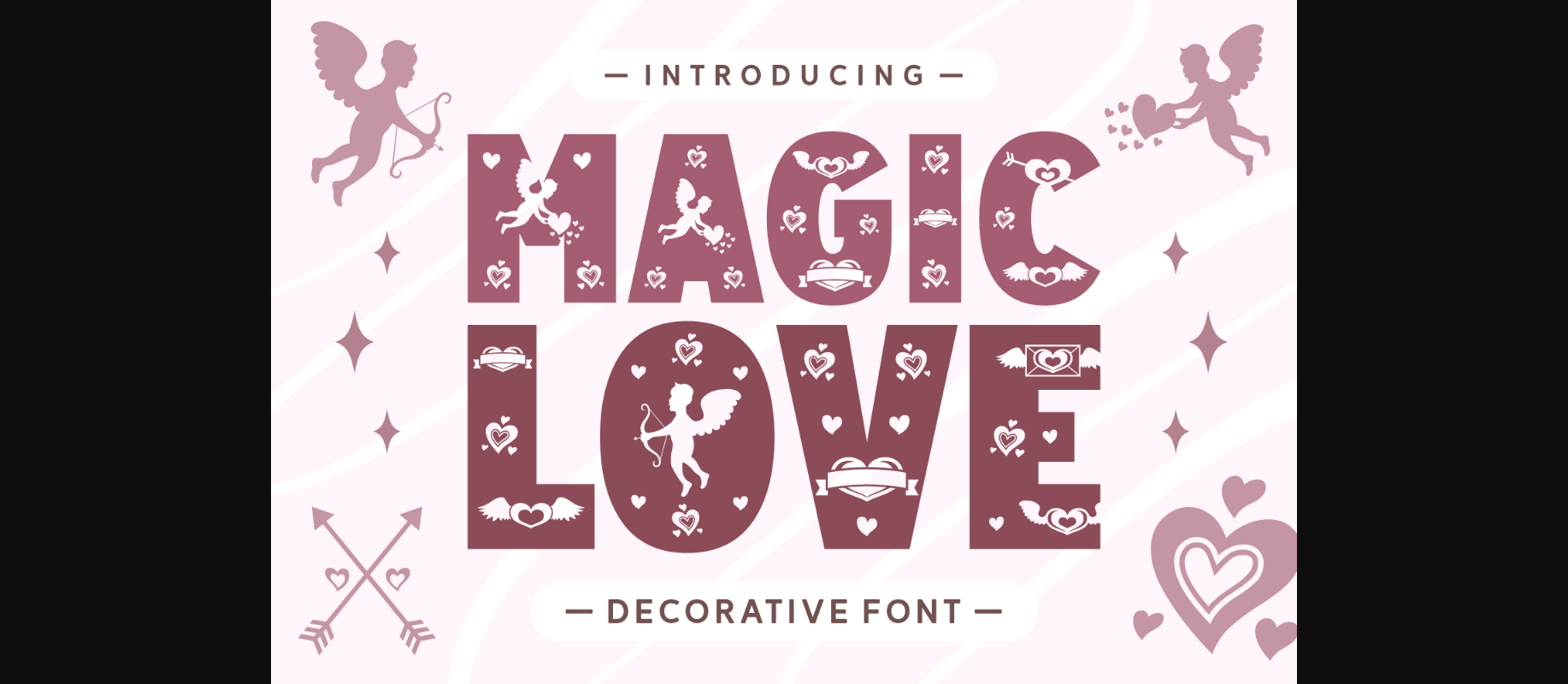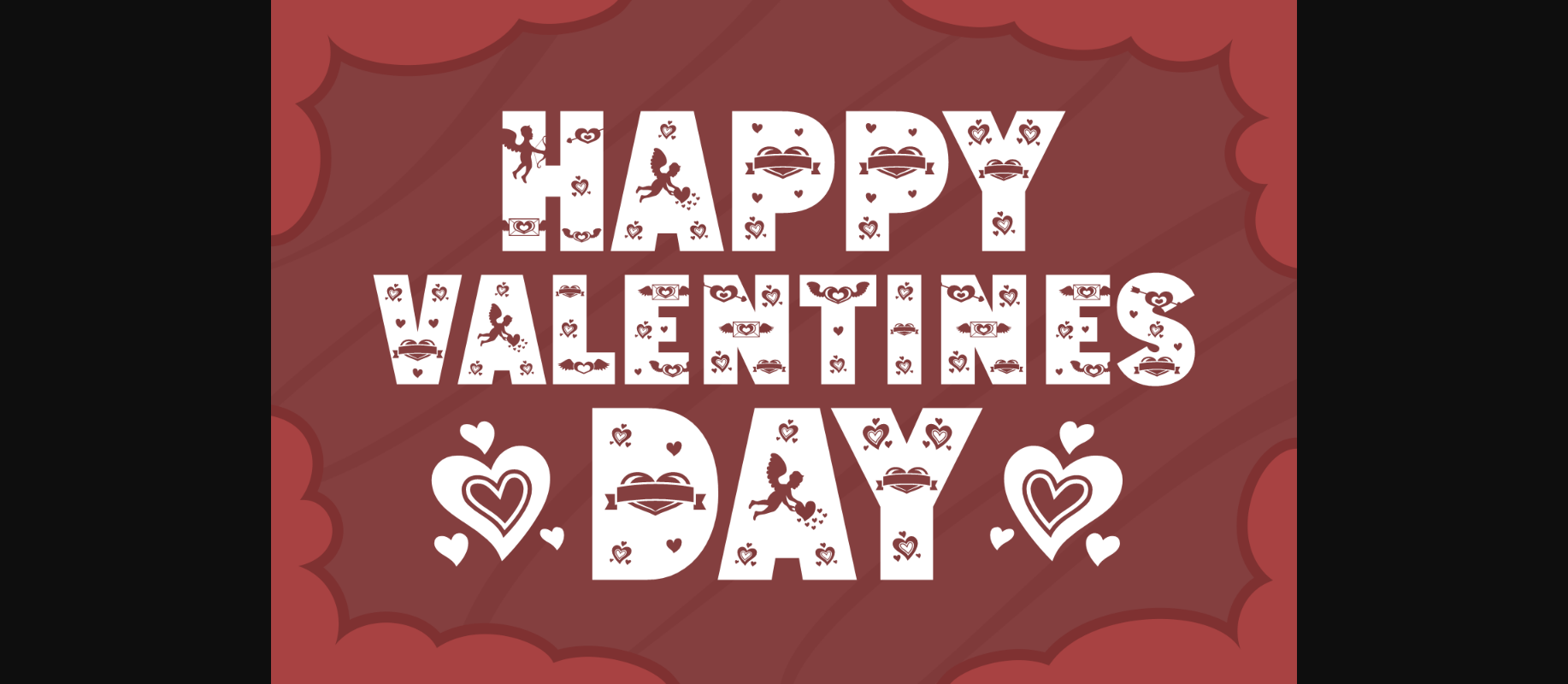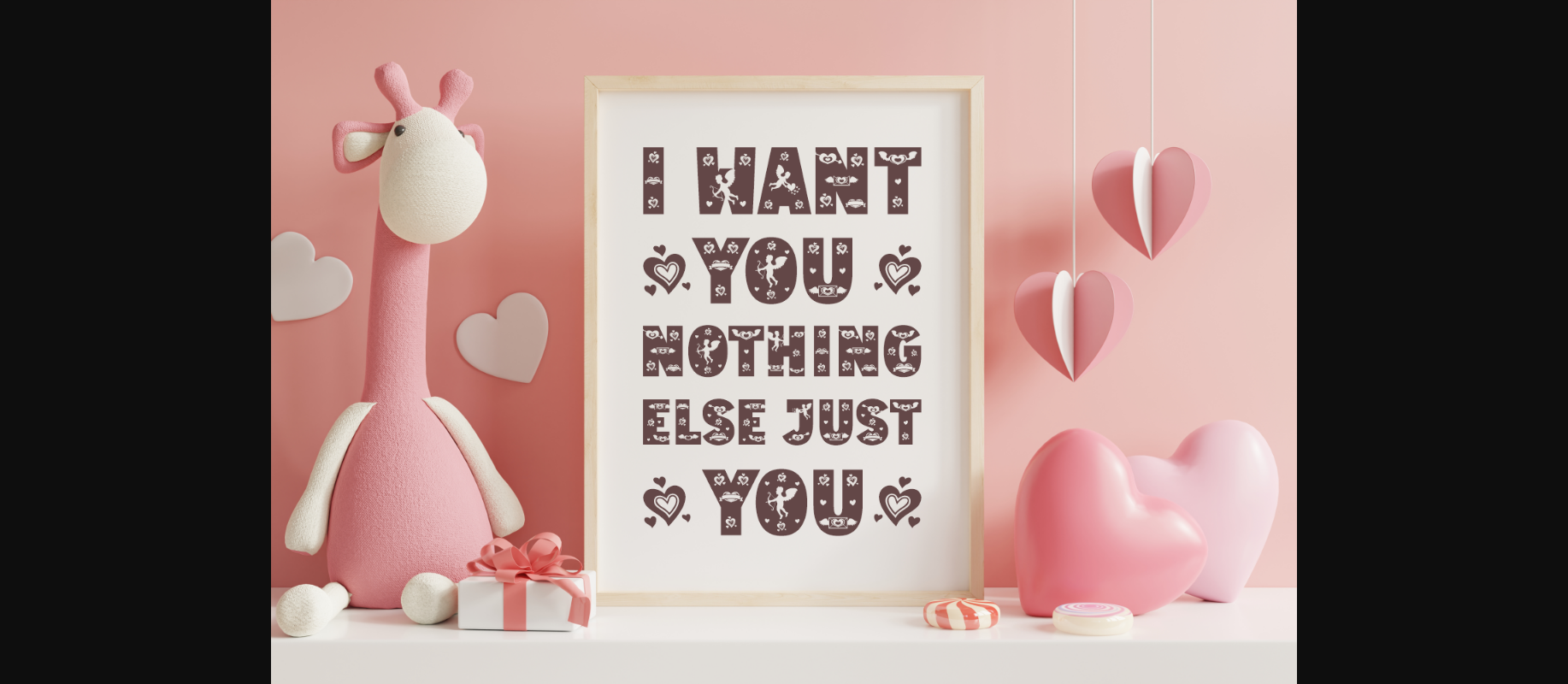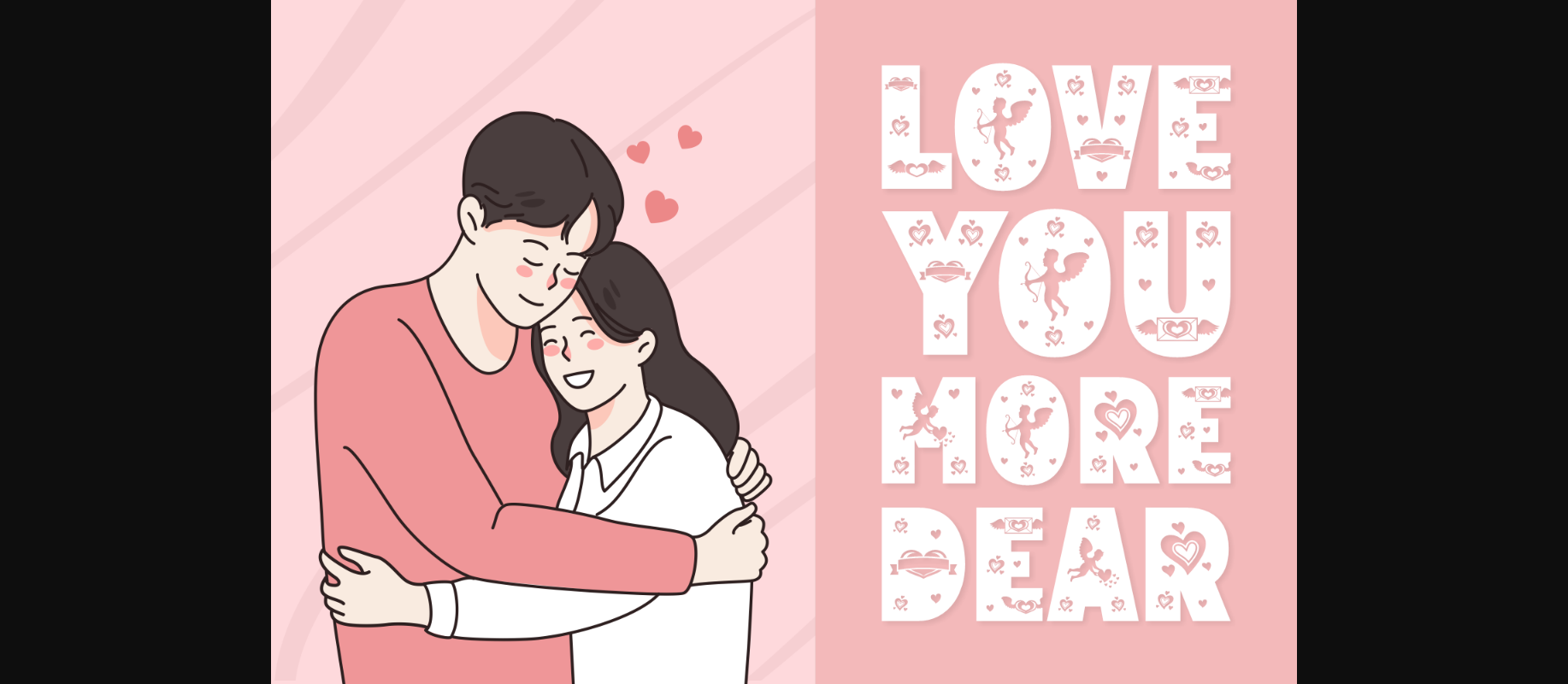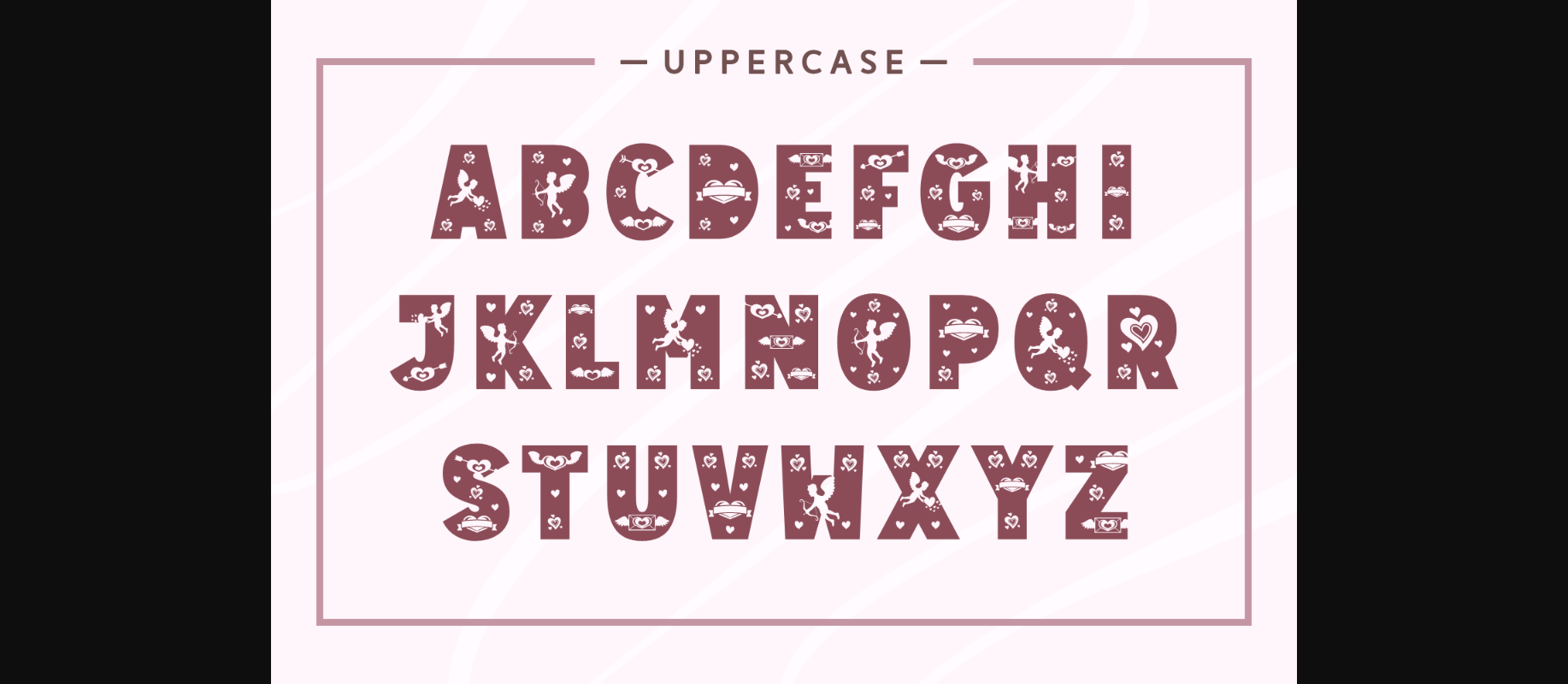
About Magic Love Font
Fall in love with our lovely and cute decorative font, featuring tiny romantic elements within each letter. Magic Love is perfect for adding a touch of whimsy to your designs, whether it’s for a special occasion or simply to add a bit of charm to your branding. The playful and delicate design will delight any audience.